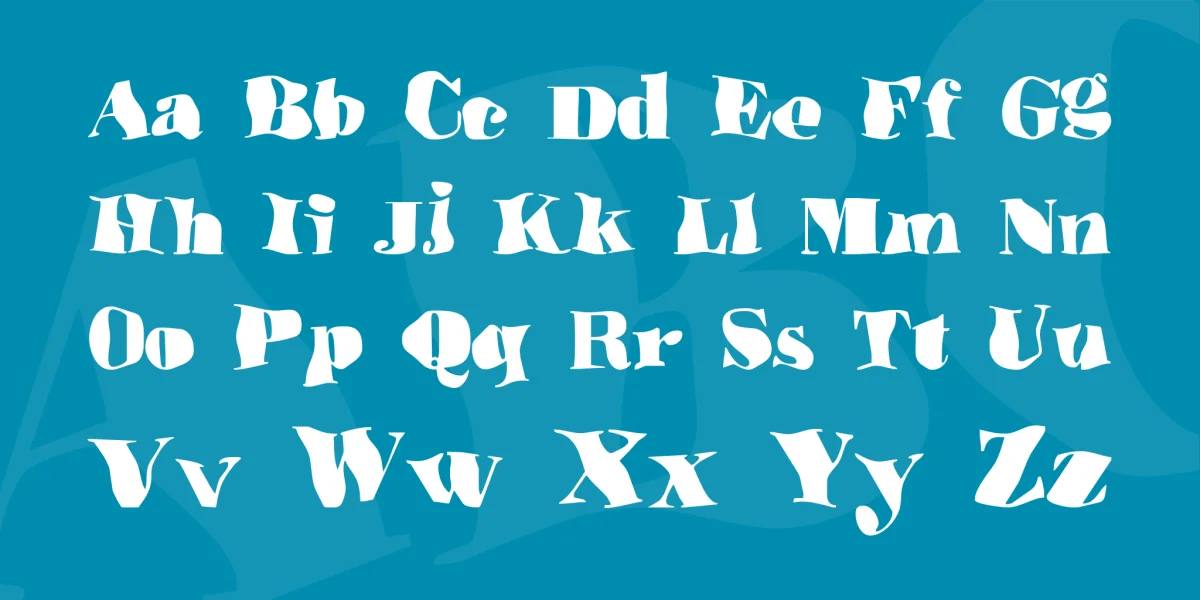
I named this font after the song used on the 'Mermaid' Levi's ad - the one where the drowning guy gets artificial respiration from a bunch of mermaids, who then try and nick his jeans..